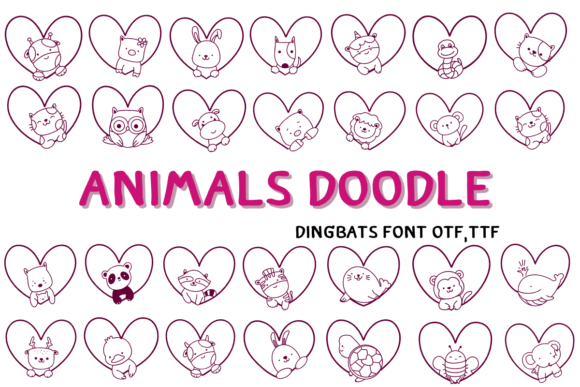
Bring Whimsy to Your Creations with Animals Doodle Font
Have you ever been working on a creative project, and suddenly, the perfect idea strikes? Maybe it’s a custom wedding invitation, a DIY craft, or a logo that needs a dash of personality. You grab your favorite pen and start doodling, letting your imagination run wild. That’s the magic of creating something truly unique.
Animals Doodle Font is a dingbats font that captures the essence of that sketchy, whimsical style. With its playful animals and illustrations, this font is perfect for designers looking to add a touch of fun and creativity to their projects. Whether you’re a seasoned pro or a crafty beginner, Animals Doodle Font is a valuable tool in your design arsenal.
Animals Doodle Font Key Features
- Unique Characteristics: Whimsical, hand-drawn design featuring animals and nature-inspired elements
Animals Doodle Font Review
Overall, I’d say the “Animals Doodle Font” is a cute and playful addition to any design project. It’s perfect for creating whimsical illustrations and adding a touch of personality to your work.
- Quirky and fun character designs
- Perfect for hand-drawn or doodle-style illustrations
- Includes a wide range of animal characters
- Easy to use and customize in most design software
However, like any font, it has its limitations.
- May not be suitable for formal or professional designs
- Lack of consistency in line thickness and style
- Some characters may be difficult to read at small sizes
Overall, I think the “Animals Doodle Font” is a great addition to any designer’s toolkit, but it’s not perfect. It’s best used in projects where a playful, whimsical feel is desired.
Some tips for getting the most out of the Animals Doodle Font include:
- Using the font in conjunction with other playful and whimsical design elements.
- Creating custom illustrations and graphics using the font as a starting point.
- Using the font in a variety of contexts, including children’s books, educational materials, and advertising campaigns.
Unique Designs with Animals Doodle Font
Project 1: Whimsical Pet Store Sign
This project is a playful take on a traditional pet store sign, using the Animals Doodle Font to create a fun and approachable atmosphere.